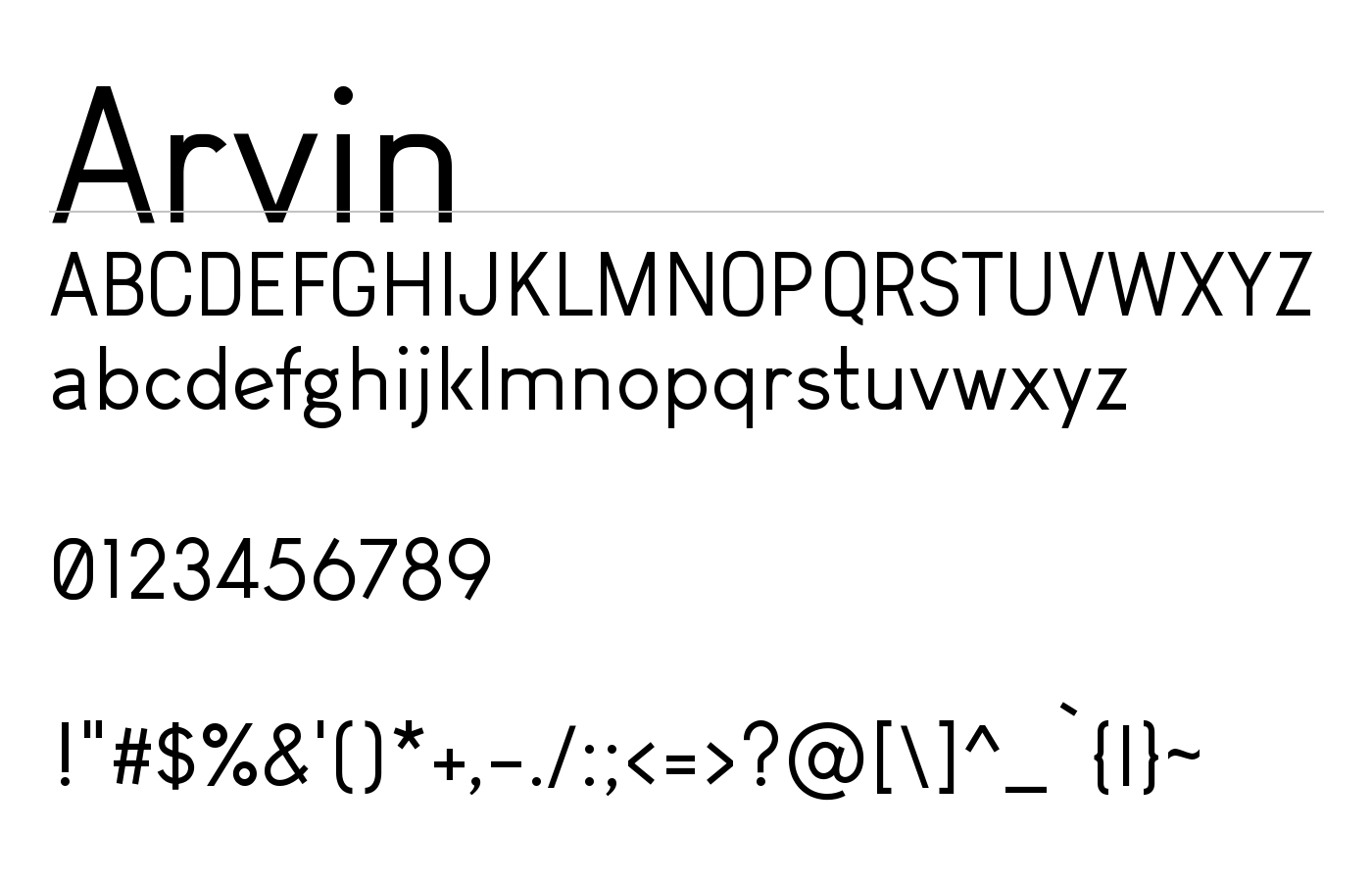
Arvin is a modern, sans serif typeface characterized by its clean, condensed letterforms and a tall x-height that ensures excellent readability. With low stroke contrast and geometric shapes, it offers a sleek and professional appearance, making it ideal for contemporary branding, editorial headlines, and digital interfaces that require clarity and minimalism. Its refined style balances elegance with approachability, making it versatile for both creative and corporate uses.
Arvin Font